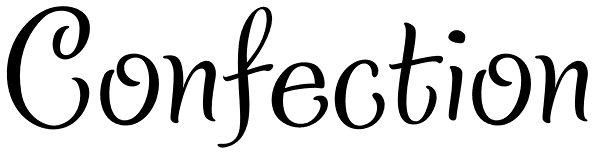
Confection
Confection is an adorable typeface inspired by copperplate scripts but is non-connecting. It's frosted with swirling peaks of whipped cream and whimsical stems of pulled taffy. The OpenType version is caramel filled with delicious ligatures and...